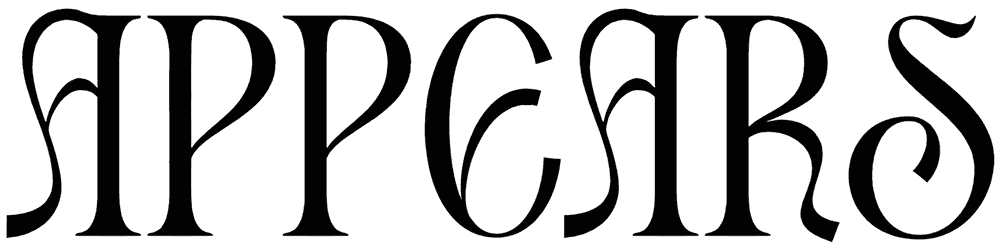
Appears Font
Appears font allows you to have elegant typography with a crescent theme. This hand-written and retro font can be used to design many wedding posters, flyers, invitation cards, and many cosmetic brands, perfumes, and watches. If you’ve used this font with a feminine and luxury sense and found it helpful, check out our website regularly for more useful freebies!